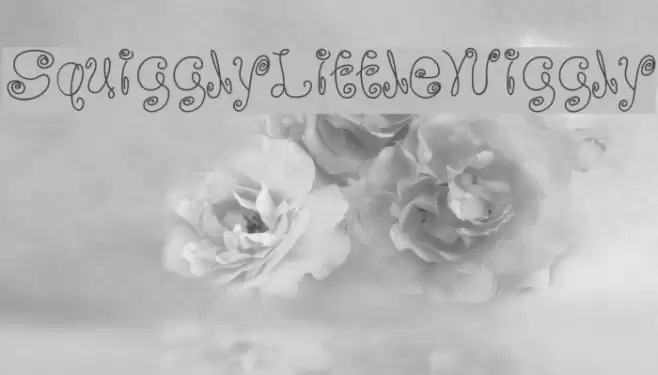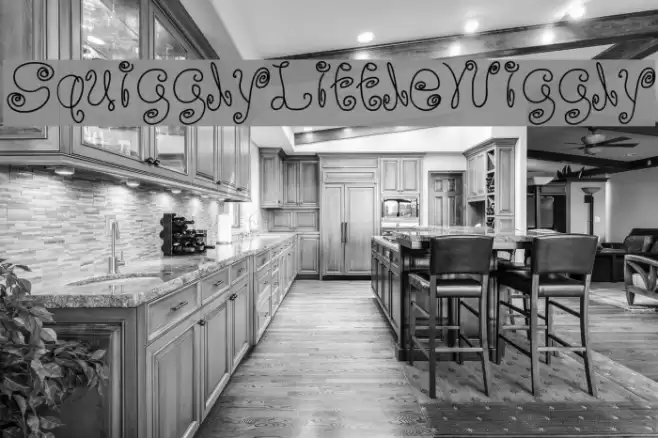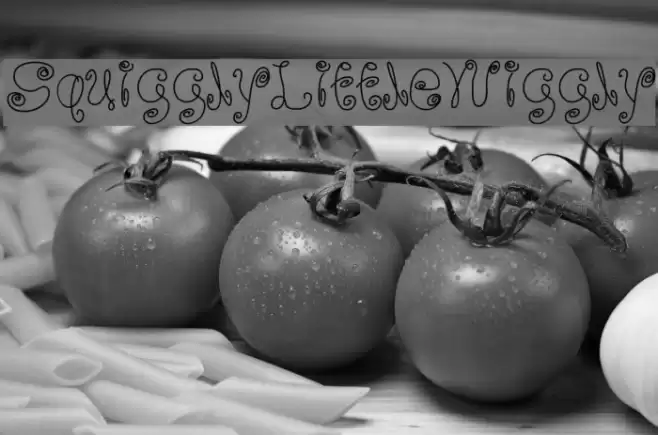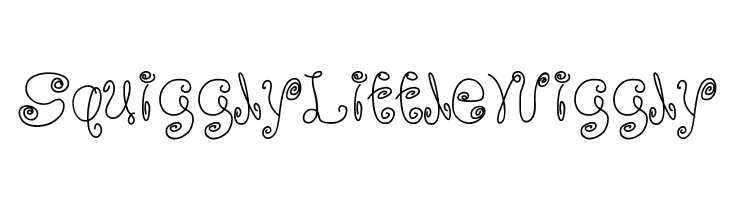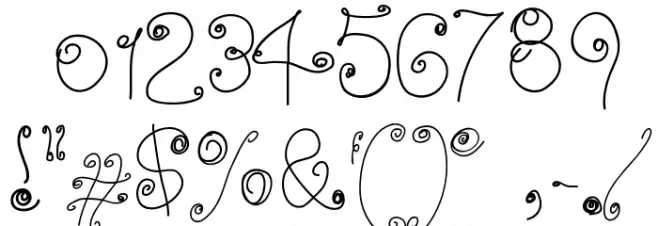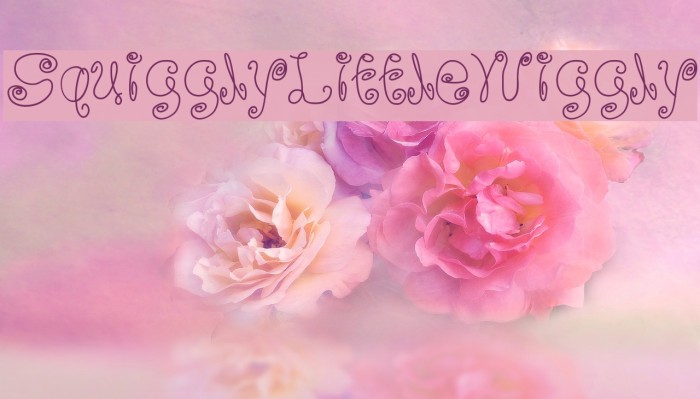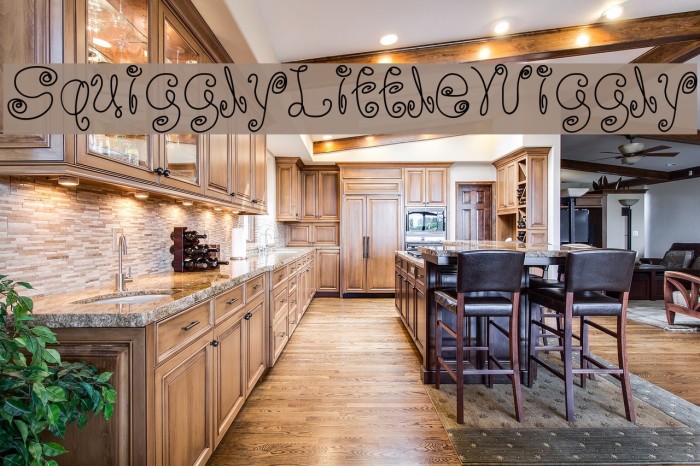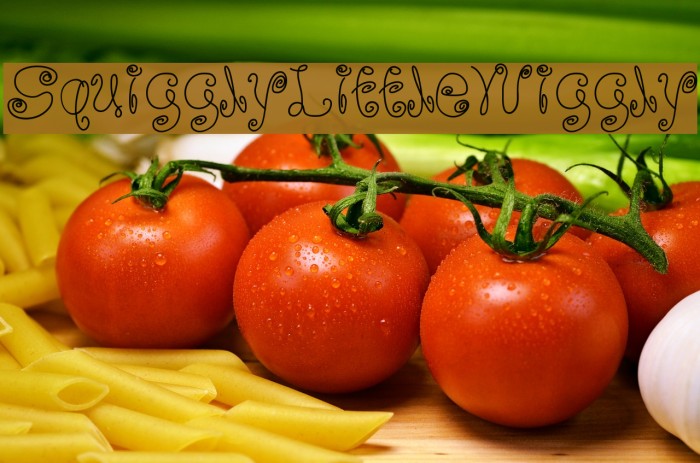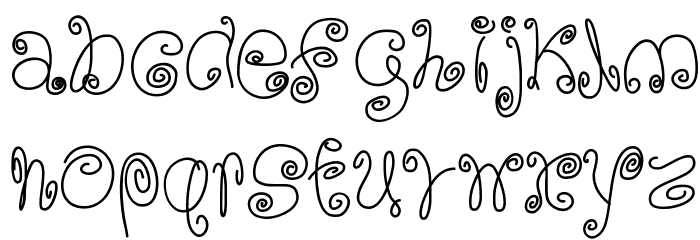
SquigglyLittleWiggly Font
SquigglyLittleWiggly Description
This whimsical and playful font features a unique design with each character adorned with intricate swirls and curls. The letters have a hand-drawn, artistic feel, making them appear lively and dynamic. The uppercase and lowercase letters maintain a consistent style, with the swirling elements adding a sense of movement and creativity. Numbers and special characters are equally embellished, ensuring a cohesive look across all elements. The font's decorative nature makes it stand out, perfect for projects that require a touch of fun and imagination.
A whimsical, swirly font with a playful and artistic design from Curly fonts.
- Proposed Projects: Ideal for children's book covers, playful invitations, creative posters, and whimsical branding projects.